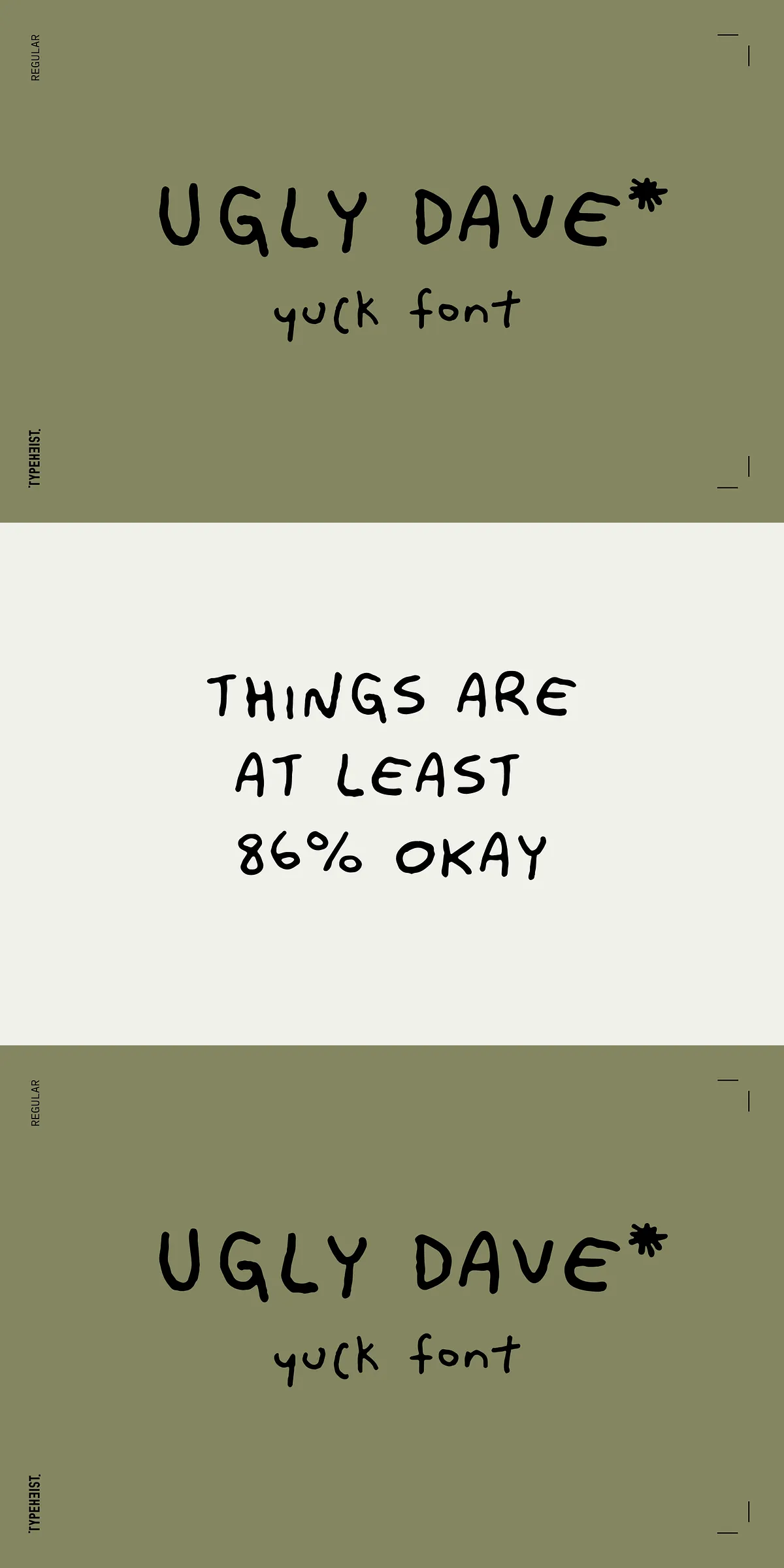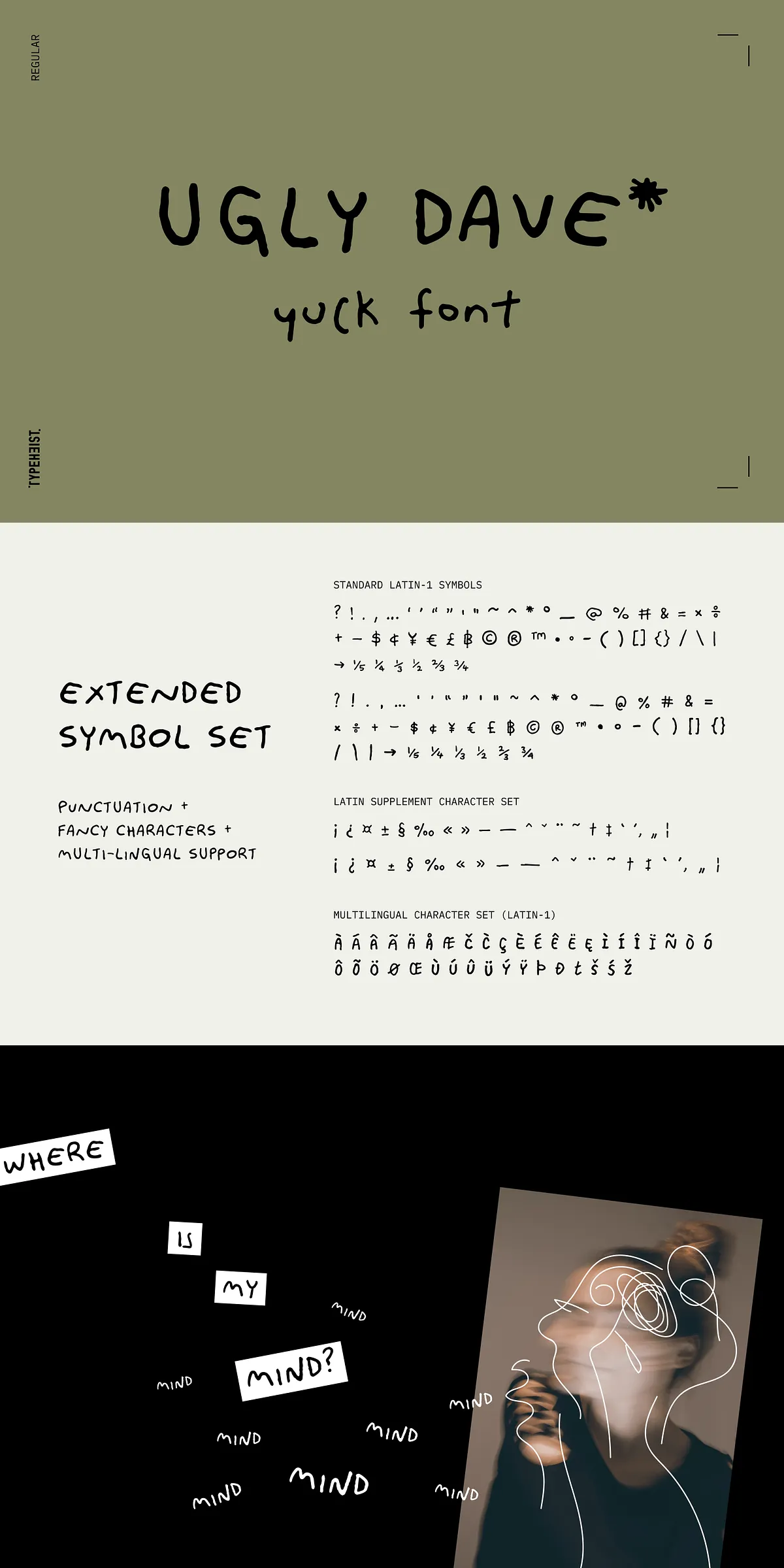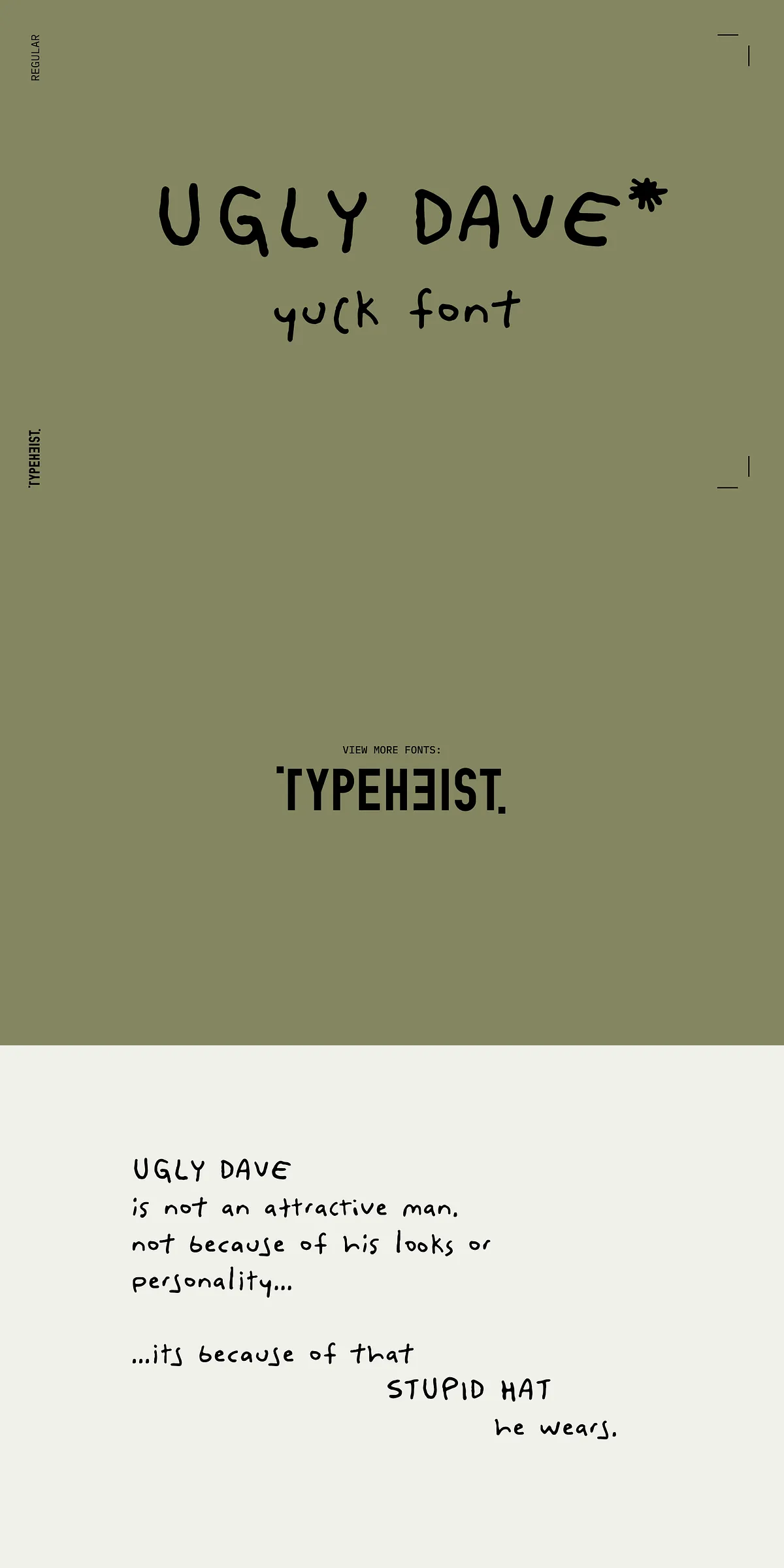
Meet Ugly Dave — the font that refuses to apologize for being messy. This isn’t a tidy script. This isn’t clean. This isn’t polished. This is perfectly bad. If you’ve ever wanted to make your text look like it was scribbled in haste by a child with no formal education, Ugly Dave is your new best friend.
Unapologetically Ugly, Uniquely Characterful
Ugly Dave is not designed to be elegant. It’s not meant to be legible in a traditional sense. It’s crafted to be authentically ugly. The letters wobble, the baseline tilts, the strokes vary wildly — this is handwriting that never learned the rules. It’s sloppy. It’s chaotic. It’s gloriously unprofessional. But here’s the twist: it’s almost legible. That’s rare for a bad handwriting font — most are unreadable. Ugly Dave walks the line between intentional mess and functional recognition.
Style That Screams “I Didn’t Care”
With its irregular shapes, uneven ascenders and descenders, and wild stroke variations, Ugly Dave delivers an instant sense of rawness. When used correctly, it adds energy, attitude, and a rebellious tone to your design. It’s the font of choice for:
- Mockups that look like they were sketched on a napkin
- Edgy branding or punk-inspired projects
- Graffiti-style visuals, street art, or urban design
- Humorous posters, memes, or satirical content
- Art installations with a DIY or anti-design philosophy
Two Styles. One Messy Vision.
Ugly Dave comes in two versions to maximize creative chaos:
- Ugly Dave Regular — The original, unfiltered chaos. Wild and unpredictable.
- Ugly Dave Alternates — A second layer of randomness. Swap in alternate characters for even more variation and unpredictability.
Switch between styles or mix them together to create wildly inconsistent, yet purposefully flawed text that feels genuinely handwritten — not digitally faked.
Built for Real-World Use: Accented Characters & Full Accessibility
Even in its imperfection, Ugly Dave isn’t lazy. It includes full support for English and accented characters, so you don’t have to compromise when creating multilingual content. Whether you’re writing in French, Spanish, Portuguese, or Polish, Ugly Dave handles it with that same rebellious charm.
When to Use Ugly Dave (And When to Avoid It)
Use Ugly Dave when you want to:
- Create authentic hand-drawn vibes with digital precision
- Make a statement that’s bold, ironic, or confrontational
- Design products or campaigns with a DIY, anti-corporate aesthetic
- Enhance mockups, packaging, or social media graphics with a touch of humor
Avoid Ugly Dave when you need:
- Professional, clean, or formal communication
- Highly legible body text (it’s not a body font)
- Designs where readability is critical (e.g., safety signs, legal documents)
Final Verdict: If You’re Not Afraid of the Mess, You’re Already Winning
Ugly Dave isn’t about perfection. It’s about intent. It’s for creators who understand that a little chaos adds humanity, humor, and edge. It’s not a font you hide. It’s a font you wield with pride.
So go ahead — let your design look like it was written by someone who never attended grammar school. Let it be messy. Let it be bold. Let it be Ugly Dave.